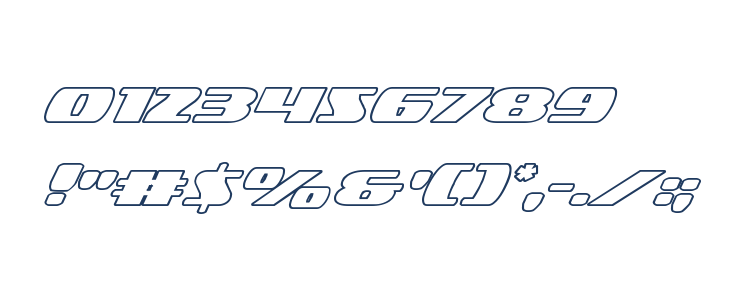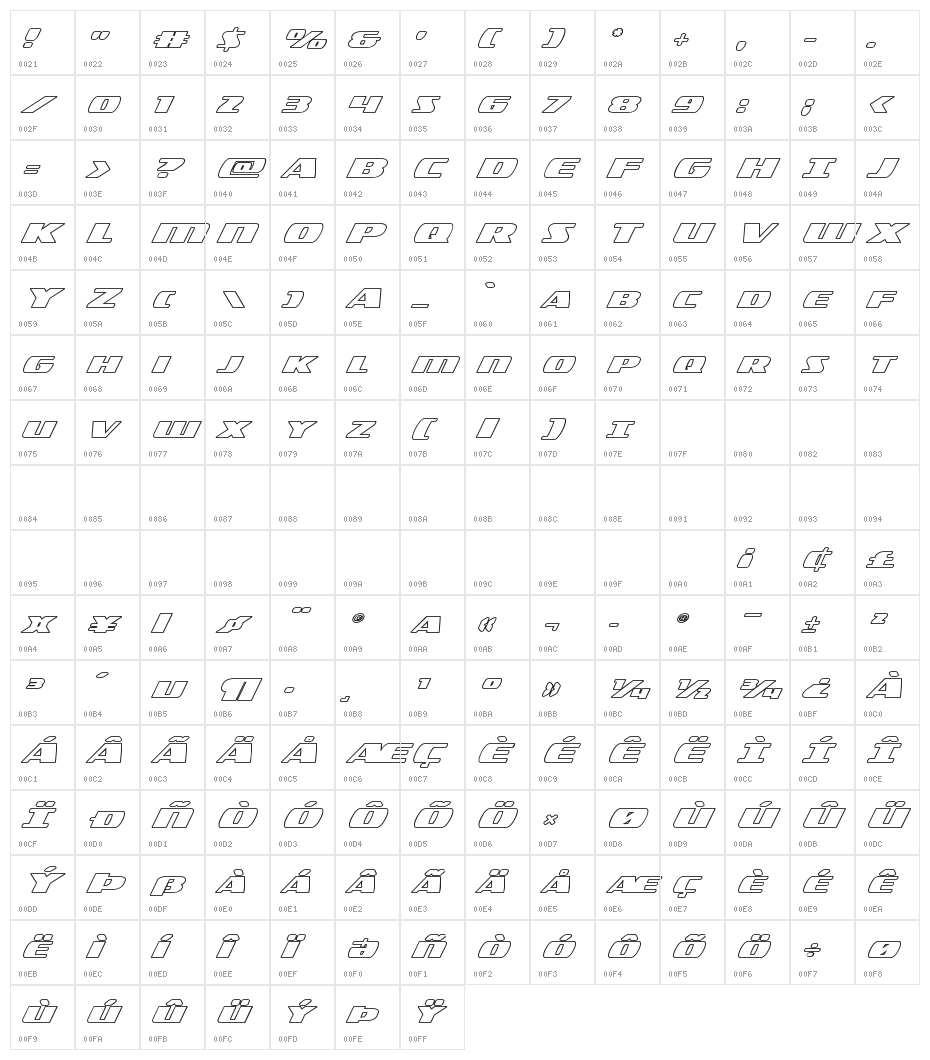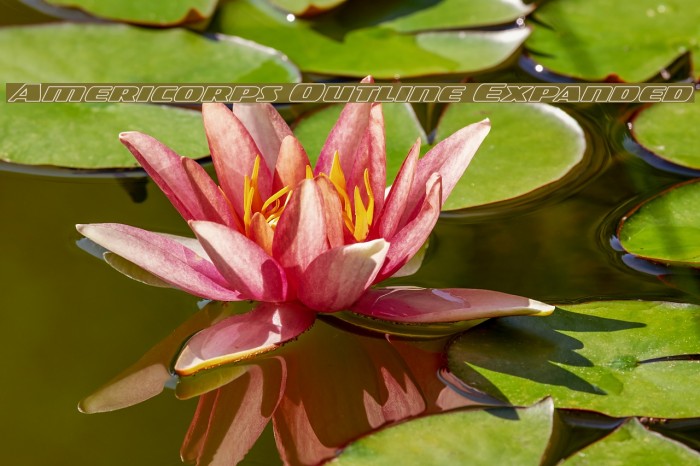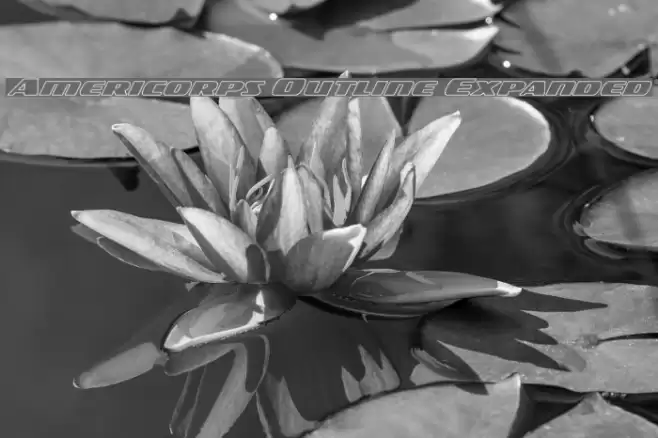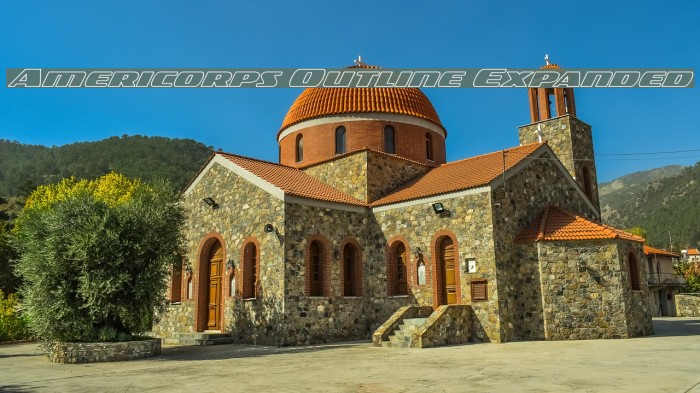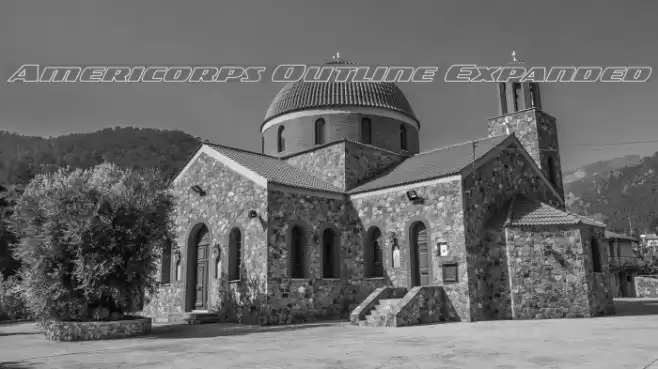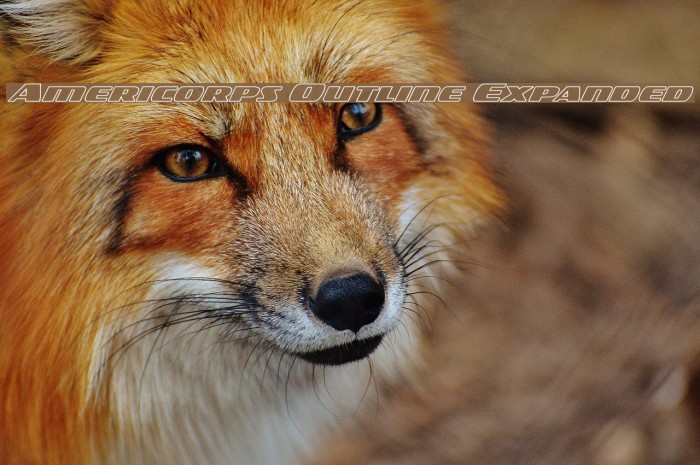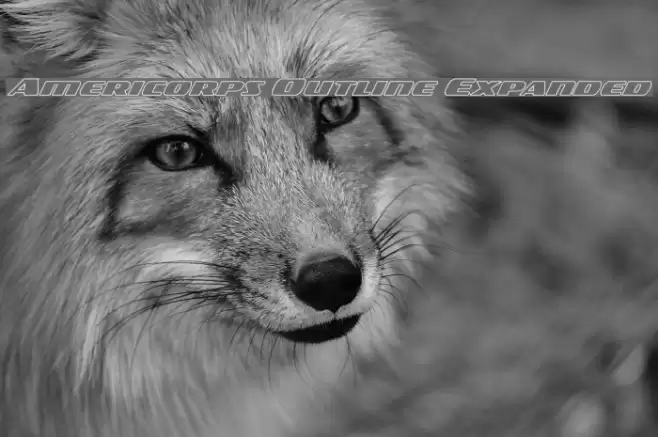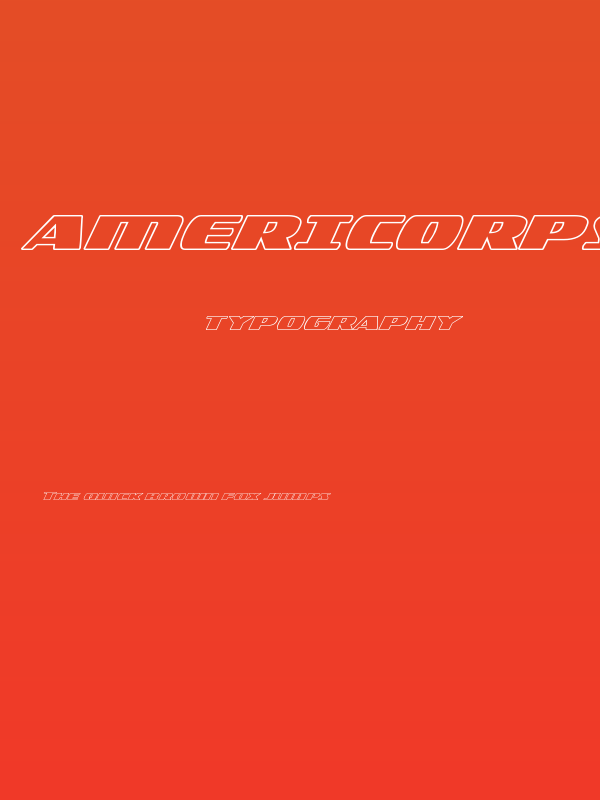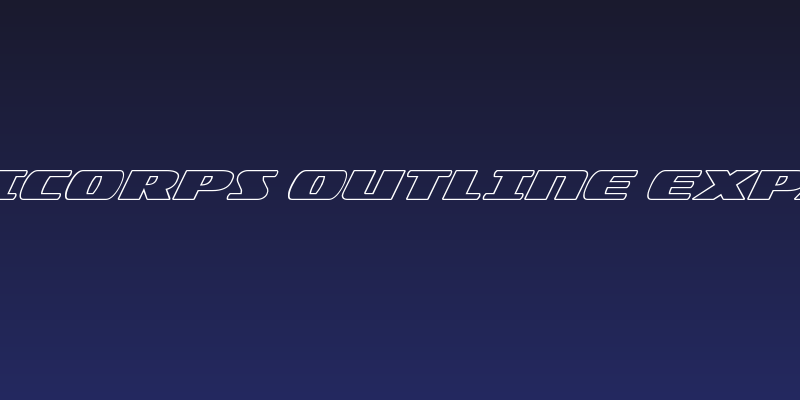
Americorps Outline Expanded Font
Americorps Outline Expanded Description
This font features a bold, outlined style with an expanded width, giving it a strong and impactful presence. The characters are uppercase and lowercase, with a geometric and angular design that conveys a modern and futuristic aesthetic. The outlines are consistent in thickness, providing a uniform look across all characters. The font includes a full set of numerals and a variety of special characters, making it versatile for different design needs. Its expanded width and outlined nature make it particularly suitable for attention-grabbing headlines and titles.